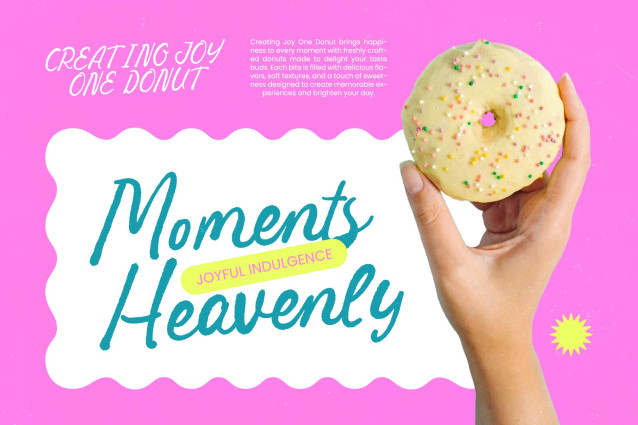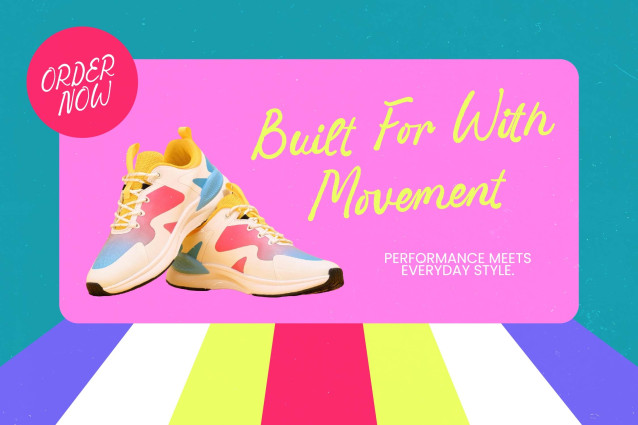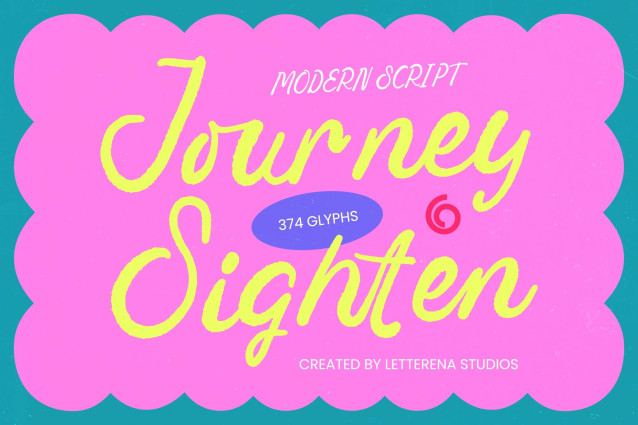
Journey Sighten – Modern Script is a premier choice for designers seeking a hand-drawn aesthetic with a contemporary edge. Its organic, fluid strokes provide a sense of authenticity and warmth that standard fonts often lack. This expressive script is meticulously crafted to capture a balance between playful charm and professional elegance, ensuring your message resonates with a distinct personal touch.
Experience unparalleled functionality across a global landscape. With its extensive multilingual support, Journey Sighten – Modern Script adapts seamlessly across global markets, making it incredibly versatile for international projects. Boasting a robust set of 374 glyphs, this typeface offers the technical depth required for complex layouts. The unique texture within each character adds a layer of handcrafted depth, making Journey Sighten – Modern Script a standout choice for high-impact visual communication.